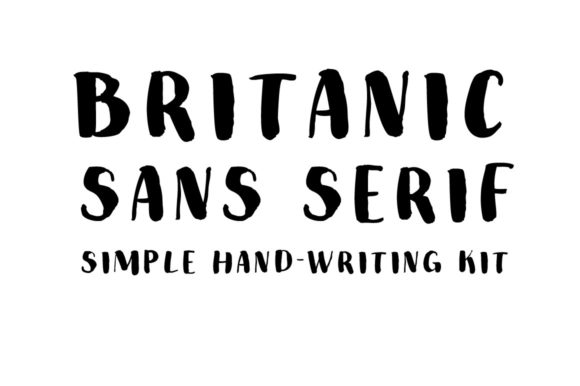
Introducing Britanic Font - The Epitome of Professionalism and Style
In a world saturated with digital clutter, where first impressions reign supreme, your words deserve a stage that exudes confidence and sophistication. Enter Britanic Font, the ultimate display font meticulously crafted to elevate your messages to new heights of professionalism.
Britanic's bold and commanding presence is sure to leave an indelible mark on your audience, whether you're crafting magazine headlines, emblazoning t-shirts with powerful statements, designing eye-catching posters that demand attention, or creating mugs that speak volumes with every sip.
Effortlessly versatile, Britanic seamlessly adapts to a myriad of creative endeavors, bringing a touch of class and polish to every project it graces. Unleash your imagination and witness how Britanic transforms your designs into captivating masterpieces, leaving a lasting impression on all who behold them.
Beyond its aesthetic brilliance, Britanic is a font engineered for the digital age, optimized for web and print applications. Its crisp lines and unwavering clarity ensure that your messages remain sharp and legible, even when viewed on screens of all sizes.
Join the creative vanguard and harness the power of Britanic Font today. Experience the thrill of crafting designs that exude professionalism, elegance, and timeless appeal. Let Britanic be your font of choice, the perfect partner in your quest for design excellence.